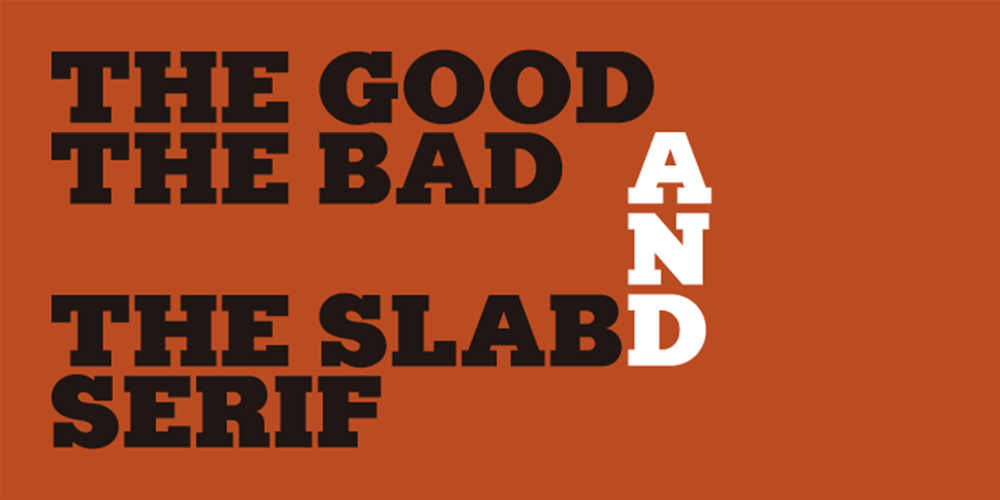
Kaine Font Family was designed by Jonathan Hill and published by The Northern Block. Kaine contains 5 styles and family package options. A bold slab-serif typeface influenced by Spagetti Western posters of the 1960s.